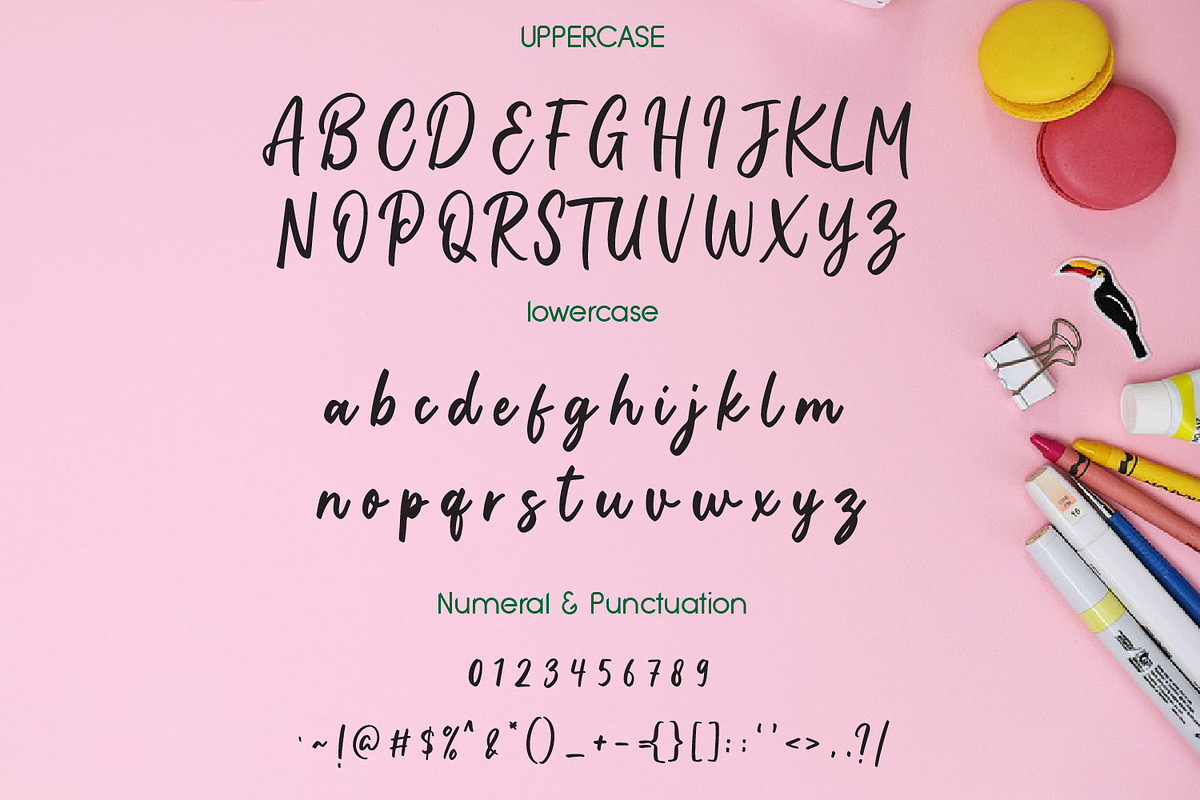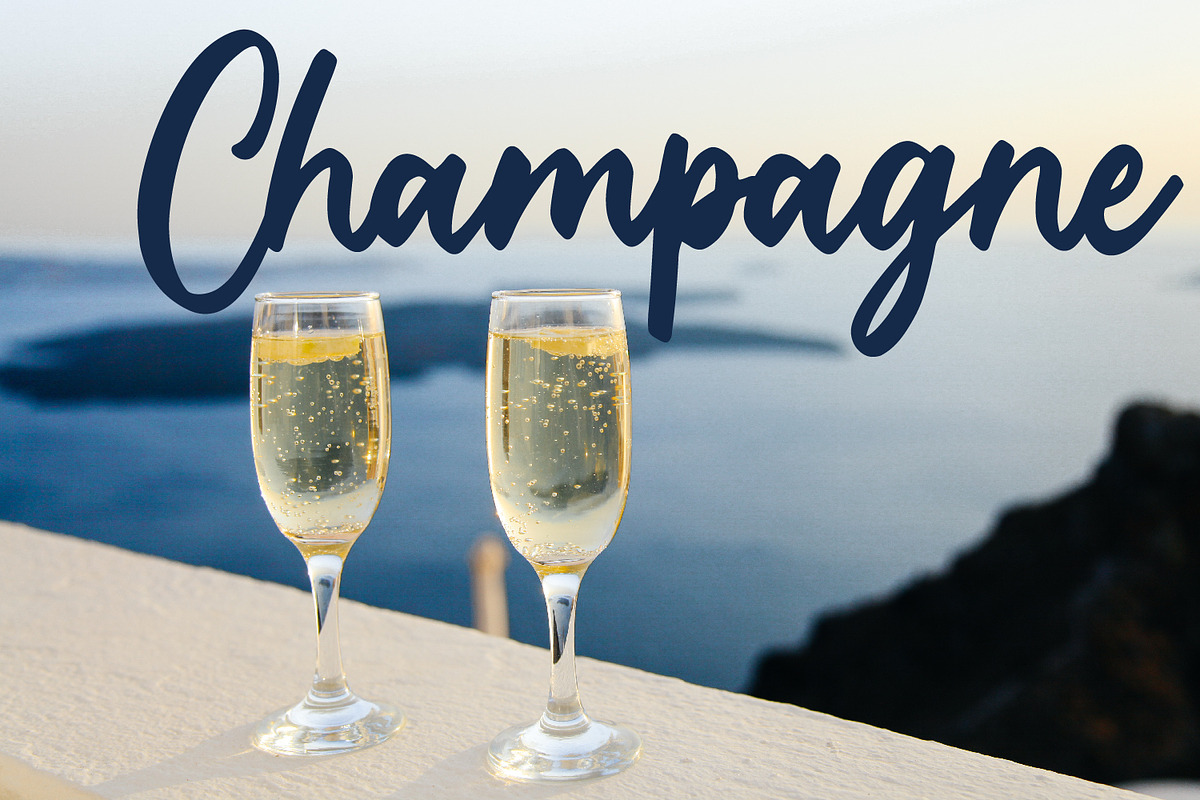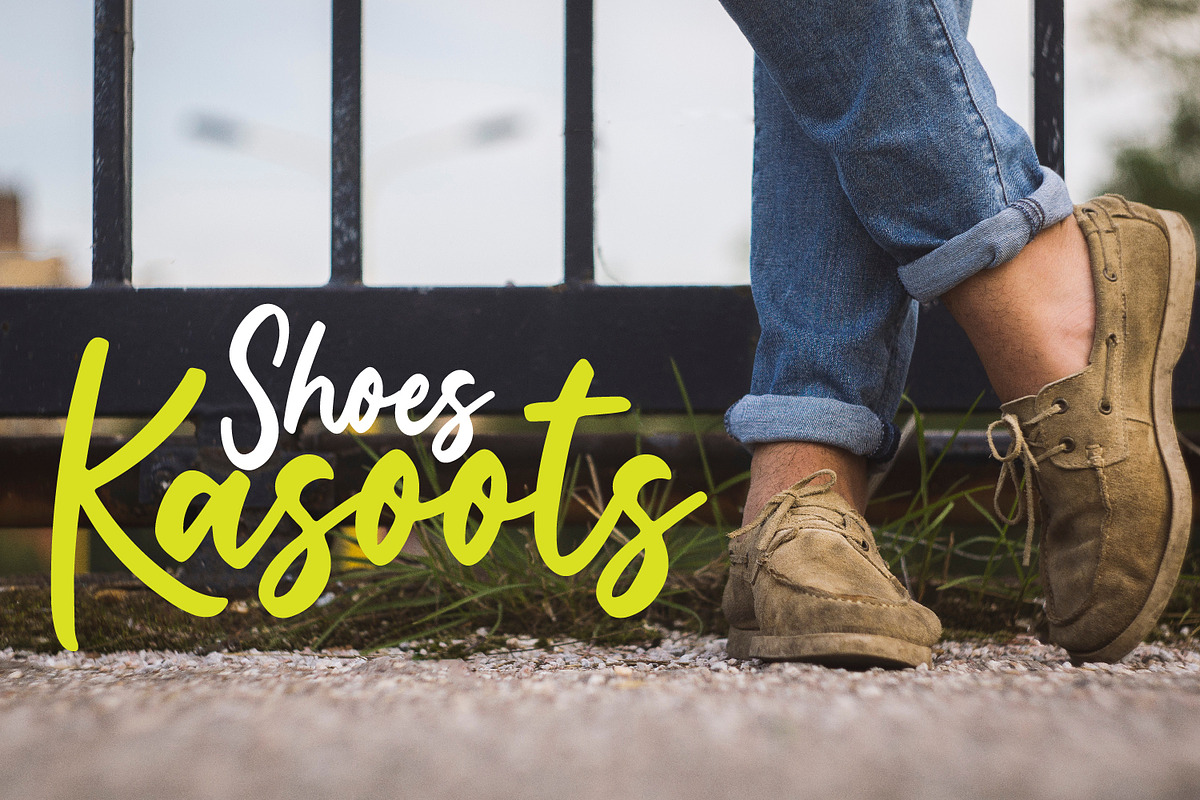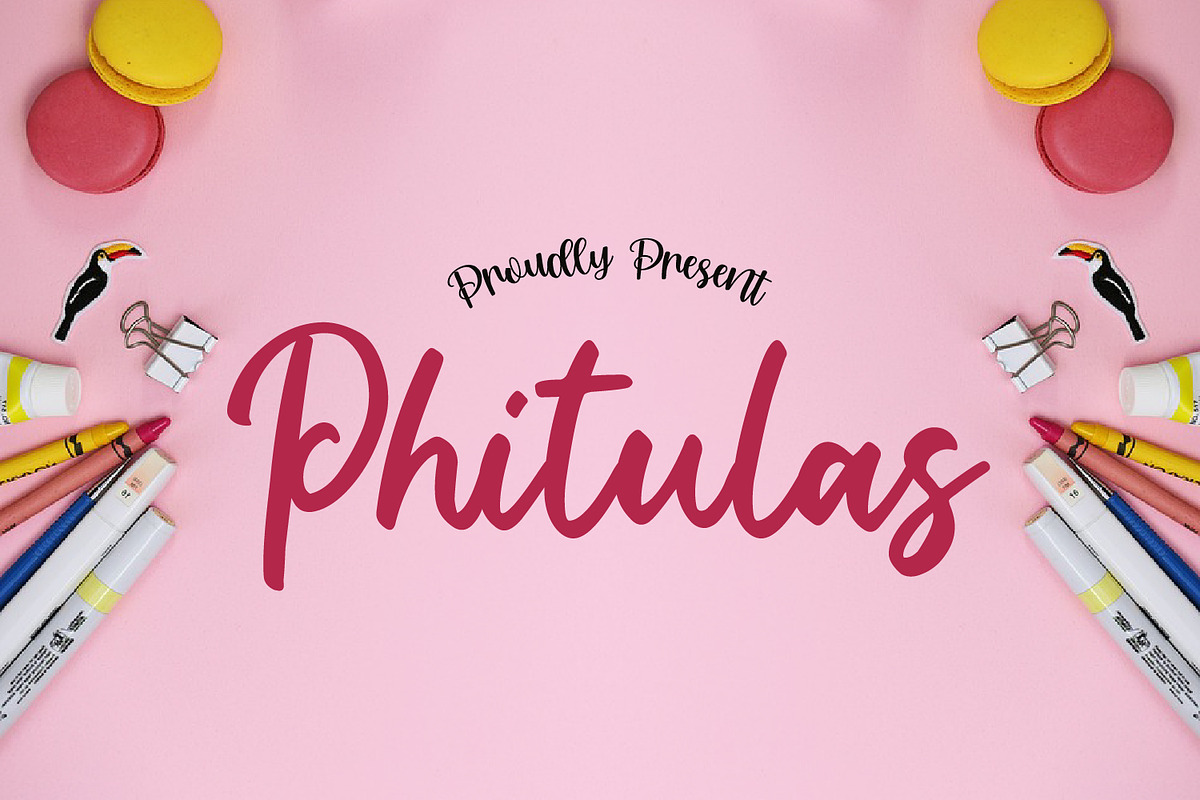
Phitulas Script
Phitulas is a classy and elegant script font. This font can be used for logos, apparel, signage store, branding, cosmetic tubes, design flyer, business card, invitations, stationery, wedding designs, social media posts, and much more!